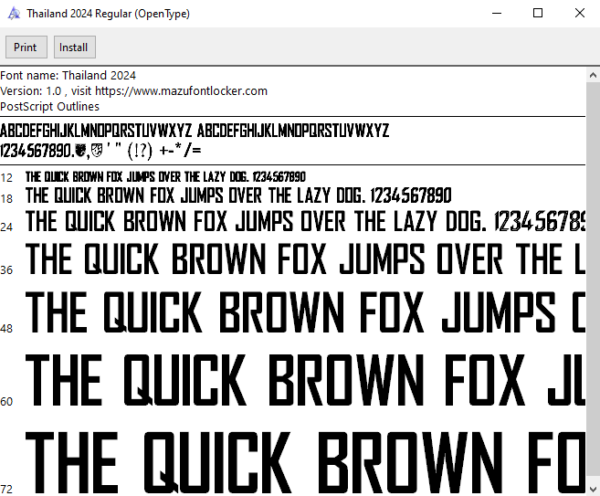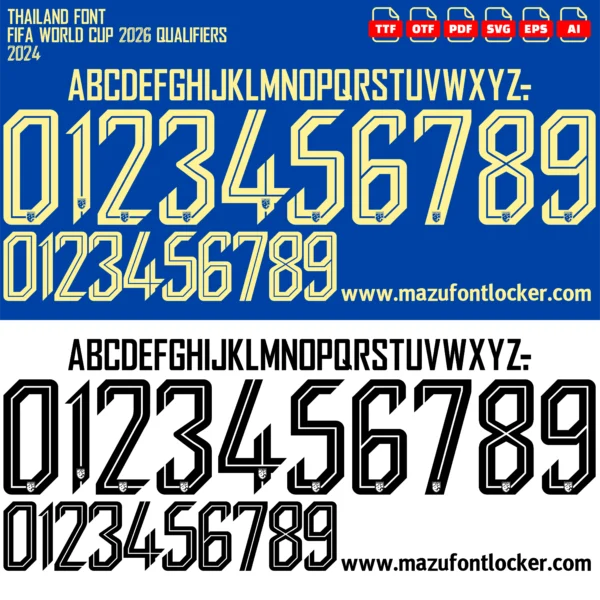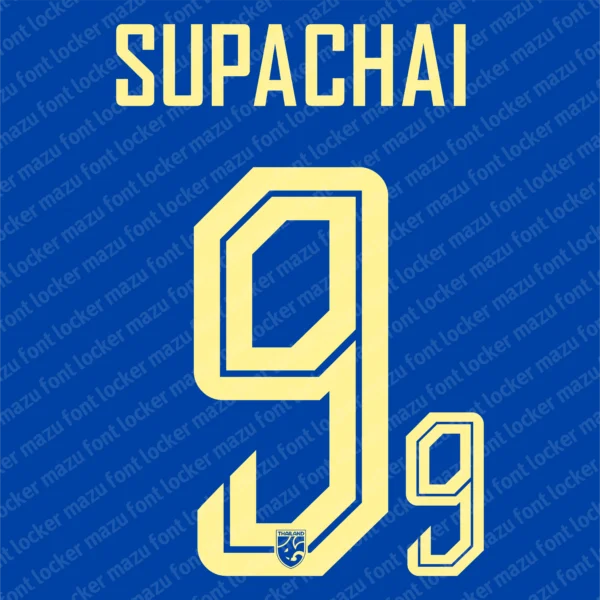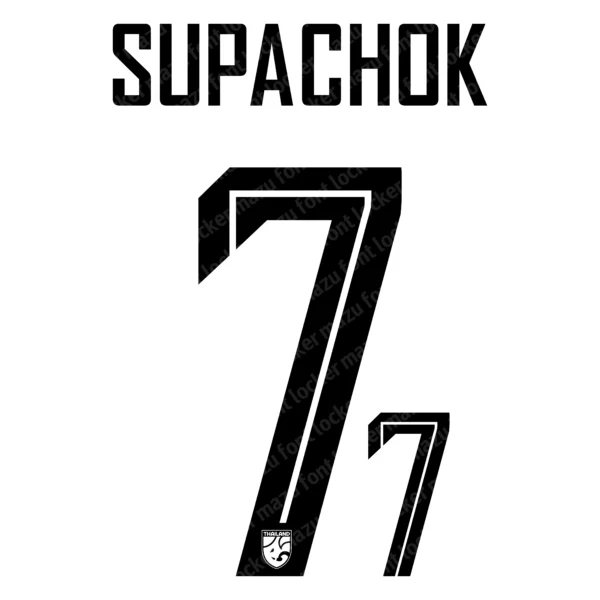
Thailand 2024 Font Vector – Epic War Elephants Triumphant Glory
This premium font captures the commanding, iconic, majestic, and battle-ready lettering that embodies the unstoppable Thai spirit — delivering raw War Elephant fire, explosive winning energy, relentless never-say-die mentality, tactical supremacy, and legendary Muay Thai warrior grit.
Thailand 2024 Font Vector – Authentic War Elephants Typeface
The Thailand 2024 Font Vector is a premium typeface that accurately recreates the official match lettering worn by the Thai National Team during the 2024 season. This high-quality vector font kit captures the bold, vibrant, and passionate typography that represents the spirit of the War Elephants, fighting determination, and rising football excellence of Team Thailand.
This font stands out because of its sharp vector precision and strong national identity. Every letter and number is crafted to match the exact style used on the players’ shirts during Thailand’s 2024 campaign. Whether you are creating realistic kit templates or exciting Chang-themed content, the Thailand 2024 Font Vector gives your designs that authentic Rajamangala Stadium atmosphere.
The letterforms in the Thailand 2024 Font Vector are bold, clean, and highly readable. The strokes feature elegant geometric construction combined with modern athletic styling and traditional Thai strength, creating a professional appearance that stands out on jerseys while preserving the nation’s football heritage and competitive spirit.
The numerals feature strong curves and sharp, precise edges, delivering a confident and premium appearance. This vector design ensures flawless scalability and excellent legibility across both print and digital applications.
• Full uppercase A–Z and numbers 0–9 in authentic Thailand 2024 style
• Special War Elephants Shield crest glyph – Press the “:” (Colon mark) symbol to insert the crest
• Includes the exact crest glyph placement used beneath player numbers